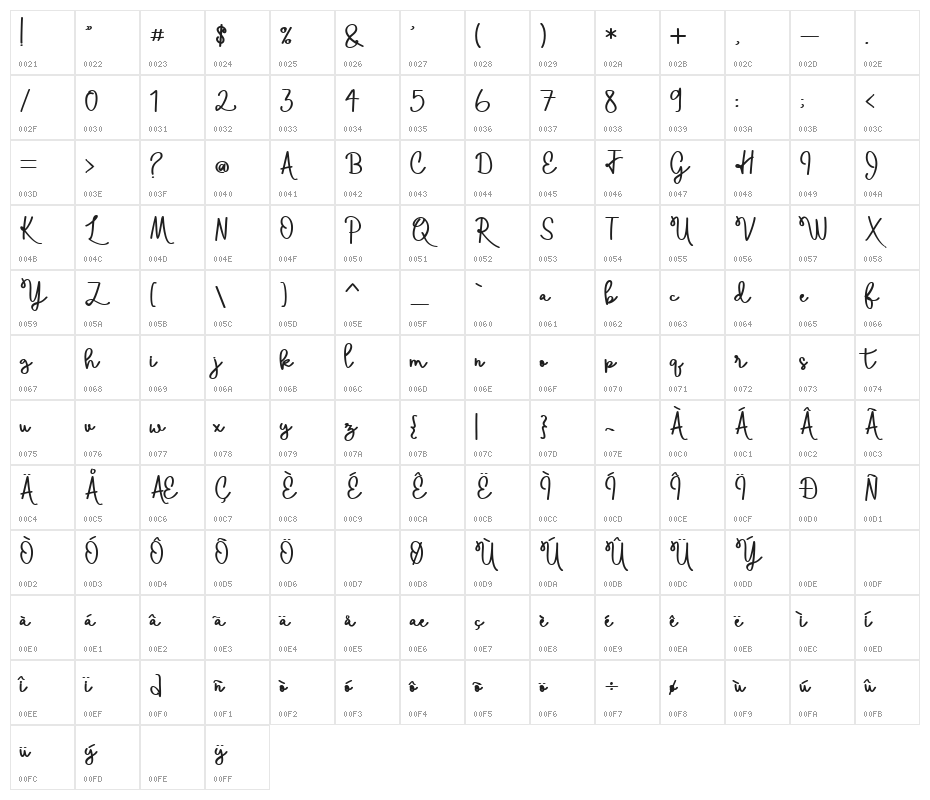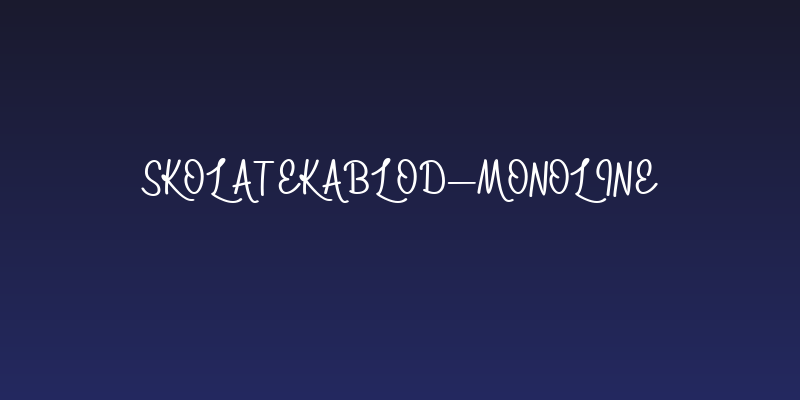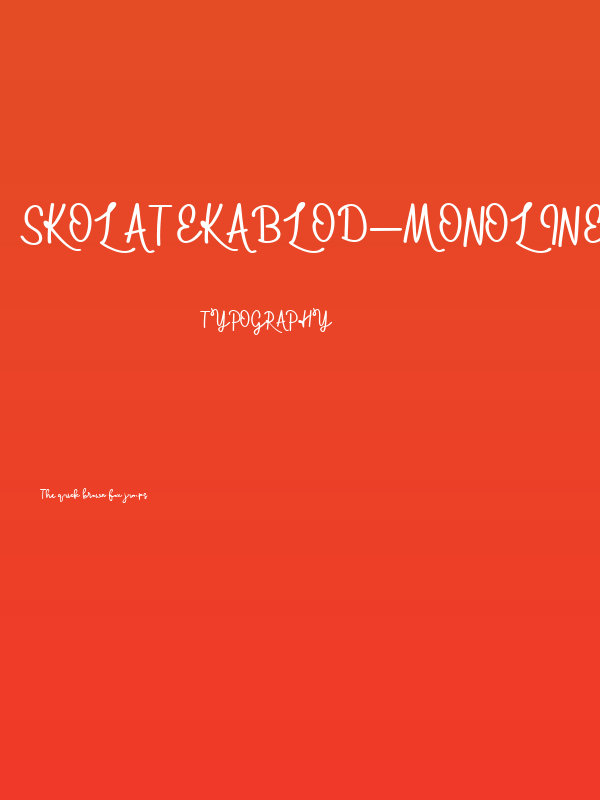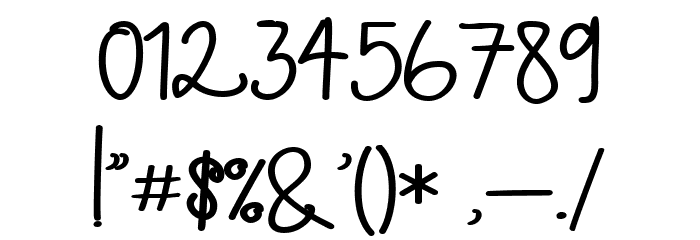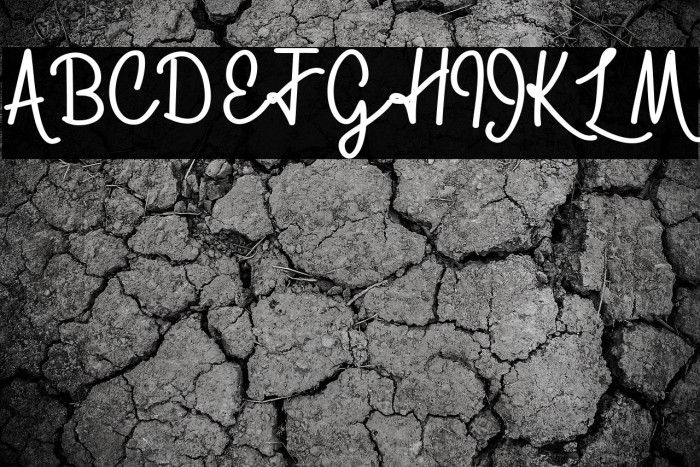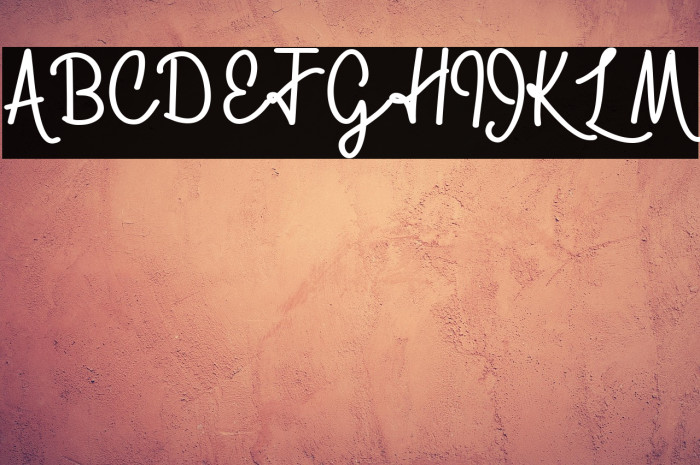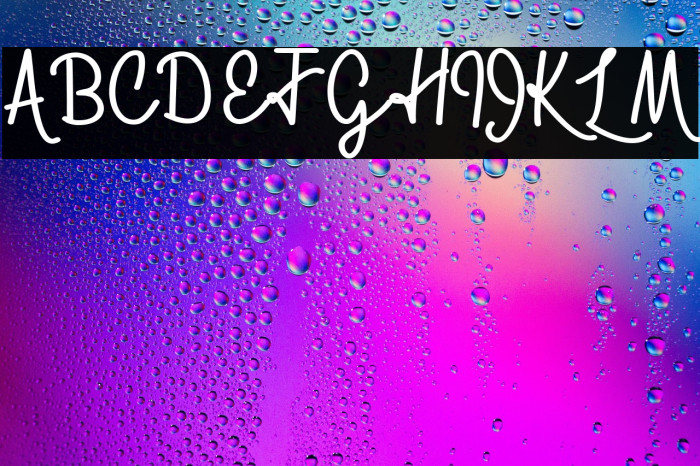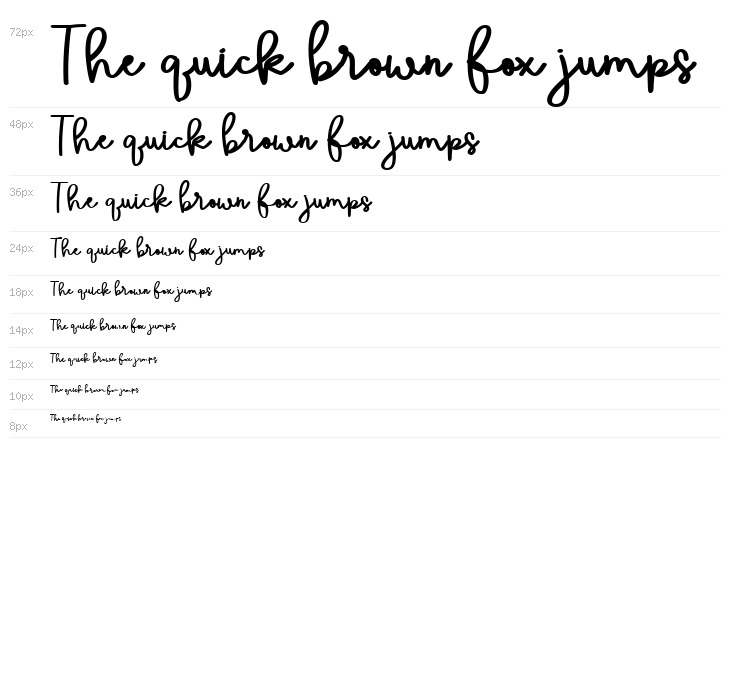
skolatekablod-monoline Font
skolatekablod-monoline Description
This font features a playful and casual handwritten style, characterized by its monoline strokes and fluid, connected letters. The uppercase letters are bold and slightly whimsical, with unique flourishes that add personality. The lowercase letters maintain a consistent flow, enhancing readability while retaining a charming, informal appearance. Numbers and special characters are crafted with the same attention to detail, ensuring a cohesive look across all glyphs. The overall design is approachable and friendly, making it suitable for a variety of creative projects.